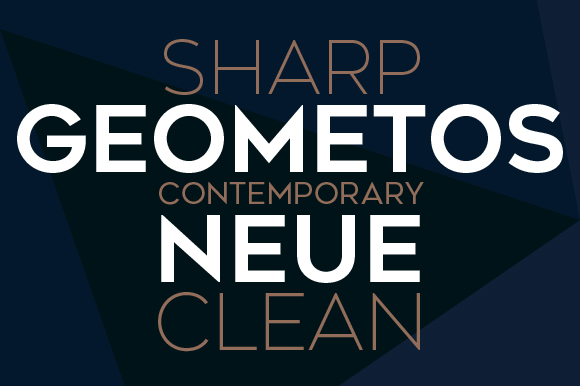
Introducing Geometos Neue Font - Your Gateway to Captivating Typography!
Are you tired of mundane and uninspiring fonts that fail to make an impact? Look no further than Geometos Neue - a geometric sans-serif typeface that will revolutionize your design game! Created by the brilliant minds at Graphite, this font family is the epitome of modern elegance and sophistication.
Geometos Neue boasts a stunning collection of seven weights, allowing you to unleash your creativity and add a touch of finesse to any project. Whether you're creating eye-catching headlines, captivating headings, or stunning logos, this font family has got you covered.
What sets Geometos Neue apart from the rest is its clean, sharp, and emphatic form. Each letter exudes confidence and style, making it the perfect choice for brands, packaging, posters, and titles. With its all caps display, this font grabs attention and leaves a lasting impression on anyone who lays eyes on it.
Embrace the power of Geometos Neue and witness your designs come to life. Let your words speak volumes through this captivating typeface, which effortlessly combines modernity with timeless appeal. Its sleek and precise lines are a testament to the meticulous craftsmanship that went into its creation.
But Geometos Neue is not just about aesthetics - it's about evoking emotions and creating connections. With every stroke of this font, you breathe life into your message, captivating your audience and leaving them wanting more. Whether you aim to inspire, inform, or persuade, Geometos Neue will amplify the impact of your words.
Embrace the future of typography with Geometos Neue. Its versatility knows no bounds, allowing you to seamlessly integrate this font into any design project. From digital platforms to print media, Geometos Neue adapts effortlessly, ensuring your message reaches its intended audience.